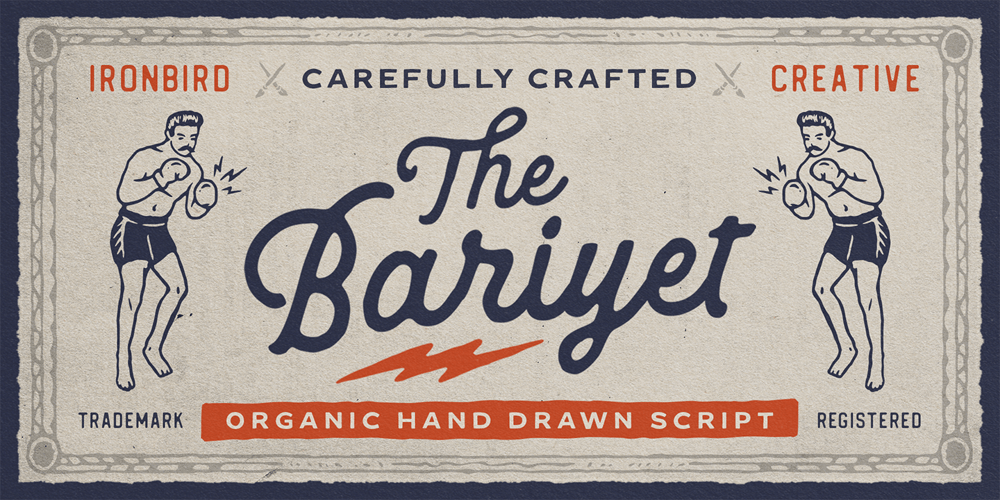
Bariyet Font Family was designed by Septianto Nugroho and published by Ironbird Creative. Bariyet contains 1 styles and family package options. The Bariyet is an organic hand drawn script. This script typeface gives a feel of vintage, classic, old, handmade looked like.This typefaces is perfect for people looking for vintage aesthetic. Suitable for any graphic designs such as branding materials, t-shirt, print, business cards, logo, poster, t-shirt, photography, quotes .etcWe hope you enjoy the font, please feel free to comment if you have any thoughts or feedback. Thanks for purchasing and have fun!Regards,Ironbird Creative